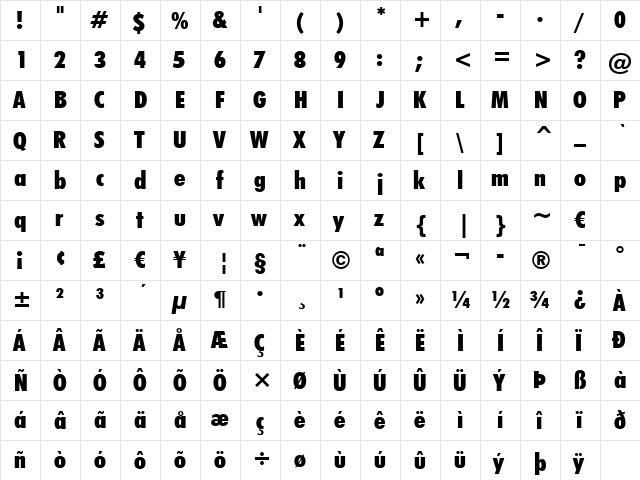
Futura XBlkCn BT Extra Black
Design Context for Futura XBlkCn BT Typeface
Futura XBlkCn BT has a distinctly futuristic character, with geometric precision and clean angles that feel at home in technology, gaming, and sci-fi contexts.
Pro Tip: Use Futura XBlkCn BT in combination with a neutral sans for body text. Let it define the brand voice in headlines while keeping reading comfortable elsewhere.